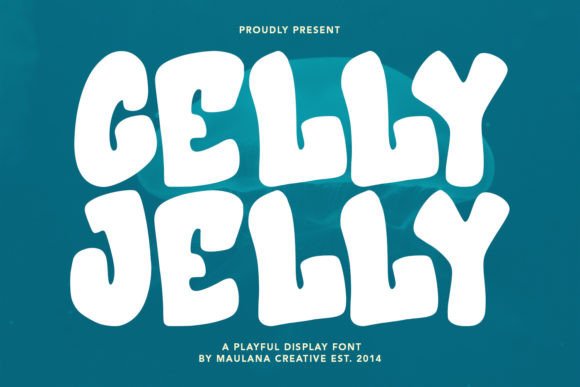
Unleash your creativity and let your words dance with Celly Jelly, the playful display font that will captivate your audience. This sans serif font, meticulously crafted by Maulana Creative, brings a touch of fun and excitement to your designs, making them stand out from the crowd.
Celly Jelly's bold strokes and playful characters, coupled with a range of ligatures and alternates, provide endless opportunities for creative expression. Let your imagination soar as you explore the possibilities, creating stunning logos, captivating social media posts, eye-catching movie and book titles, and even lengthy texts that come alive with personality.
With Celly Jelly's multilingual support, reaching a global audience has never been easier. Express your message in over 100 languages, connecting with people from diverse backgrounds and cultures. Whether you're designing for a local project or targeting an international market, Celly Jelly ensures your words resonate with everyone.
Celly Jelly's versatility extends beyond its playful nature. It seamlessly complements script or serif fonts, adding a touch of vibrancy and energy to your designs. Use it as a secondary font to create stunning contrasts or let it shine as the primary focus, commanding attention with its bold and captivating presence.
Elevate your designs to new heights with Celly Jelly. Its versatility and charm make it the perfect choice for a wide range of projects, from sleek logos and dynamic social media graphics to captivating movie titles and engaging book covers. Let Celly Jelly be your creative companion, helping you craft designs that leave a lasting impression.